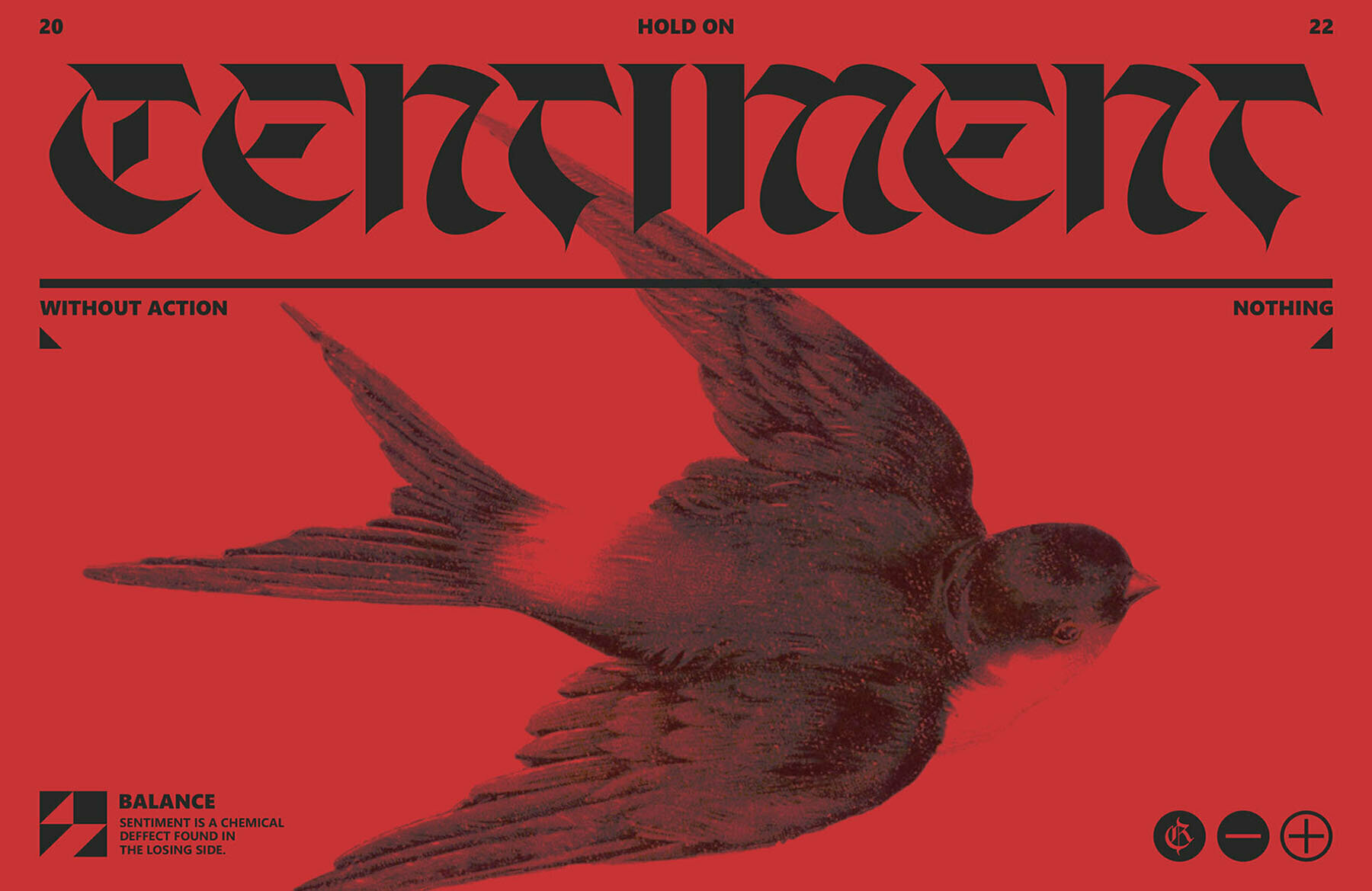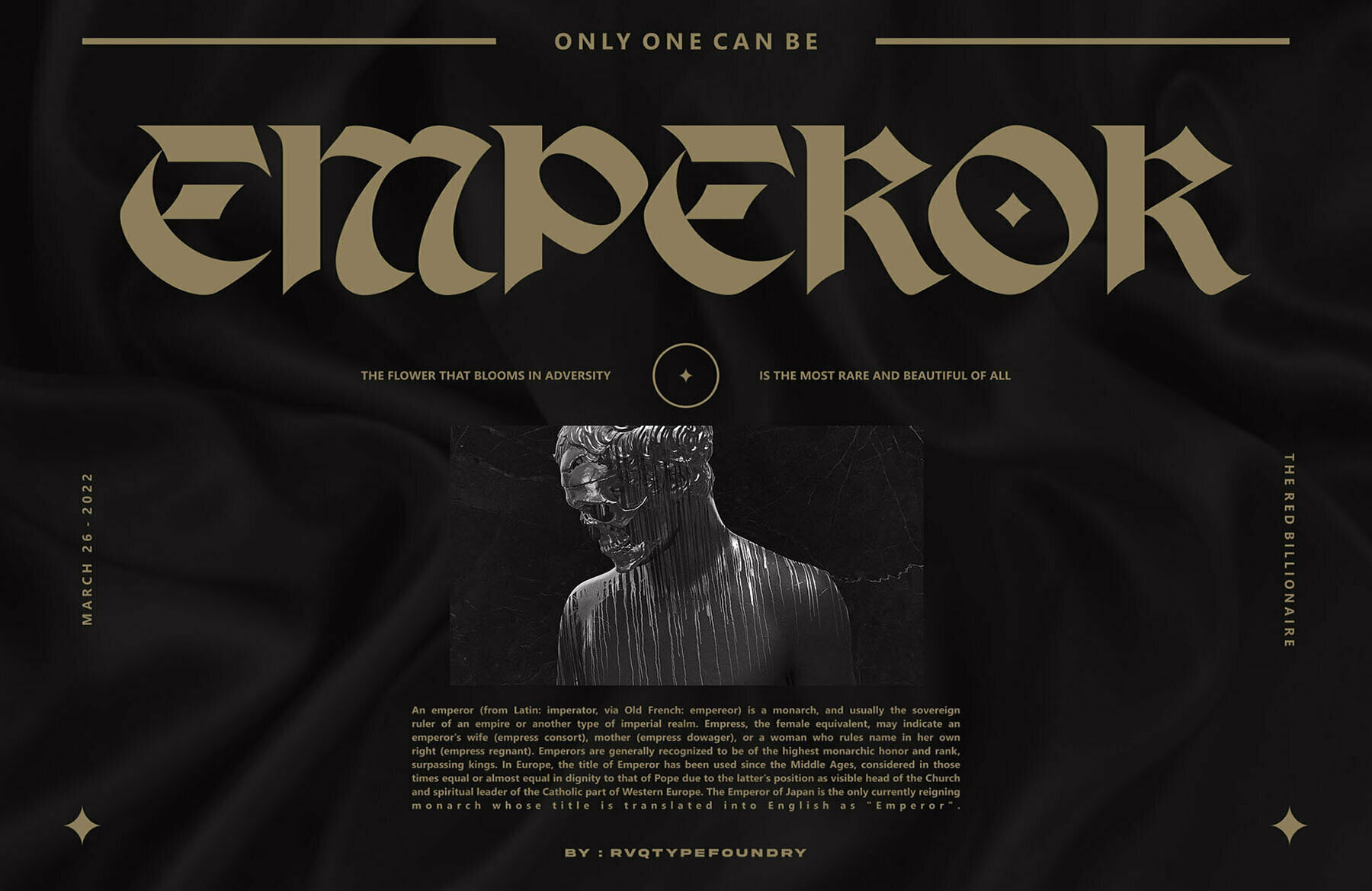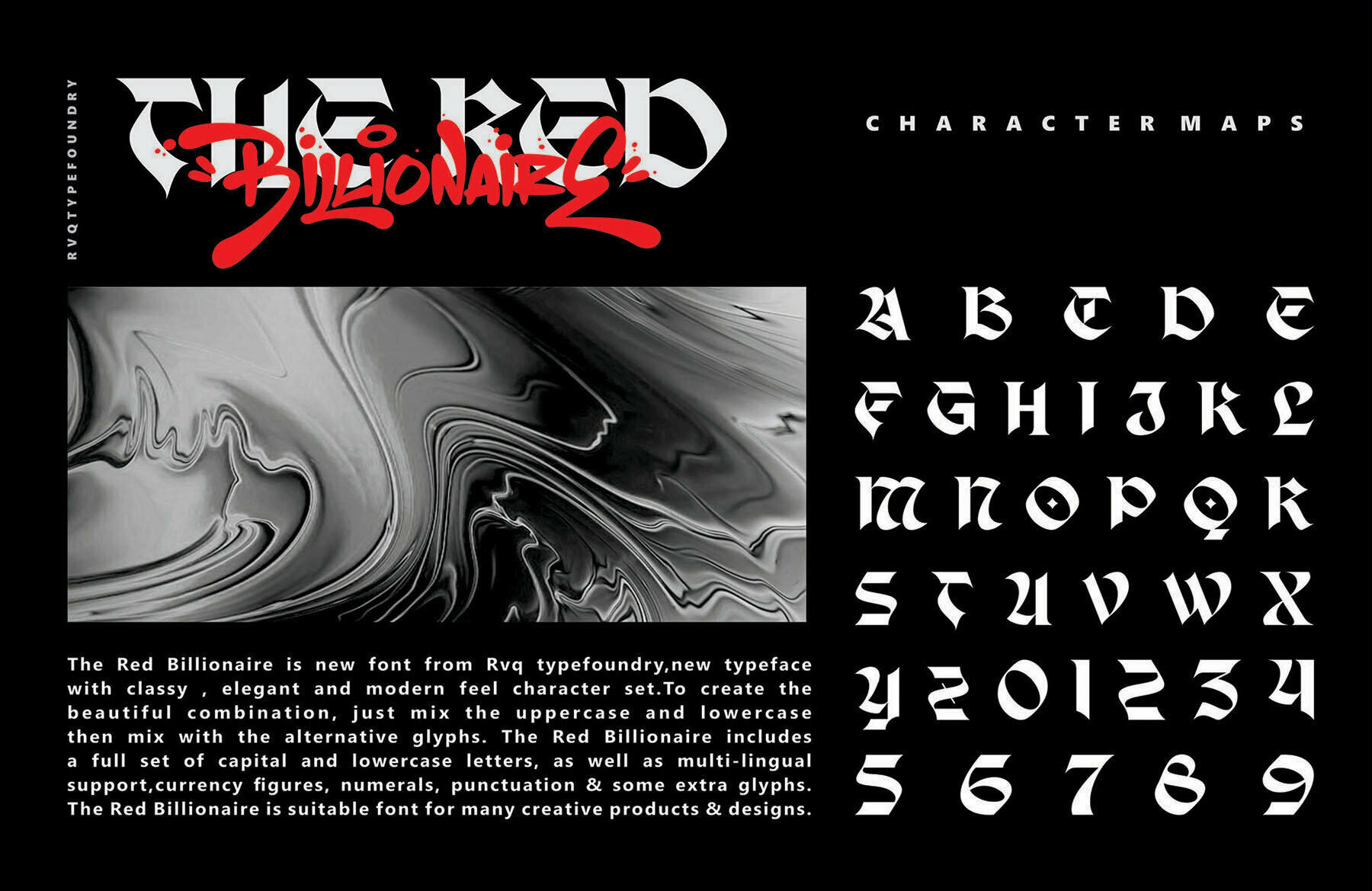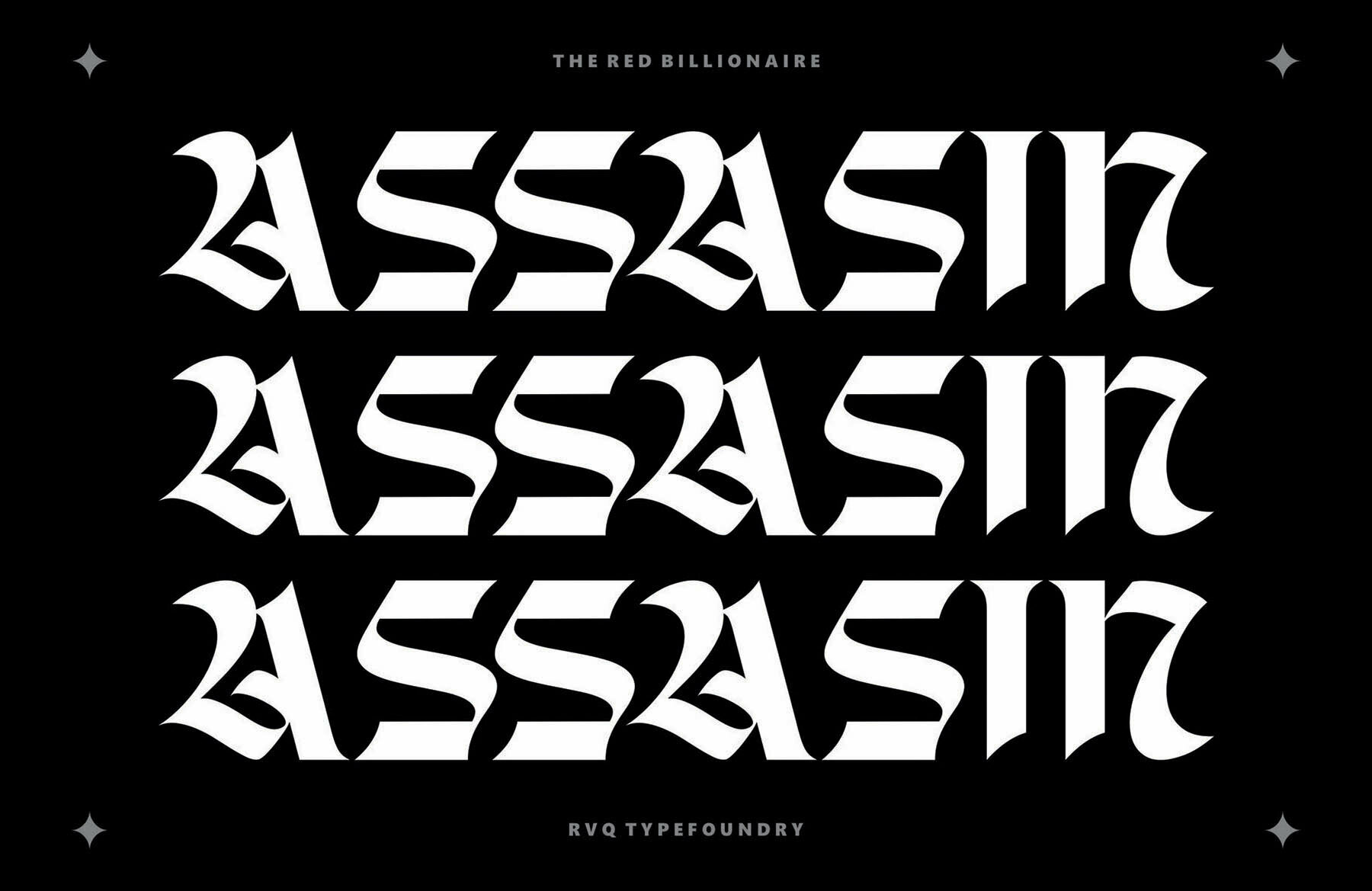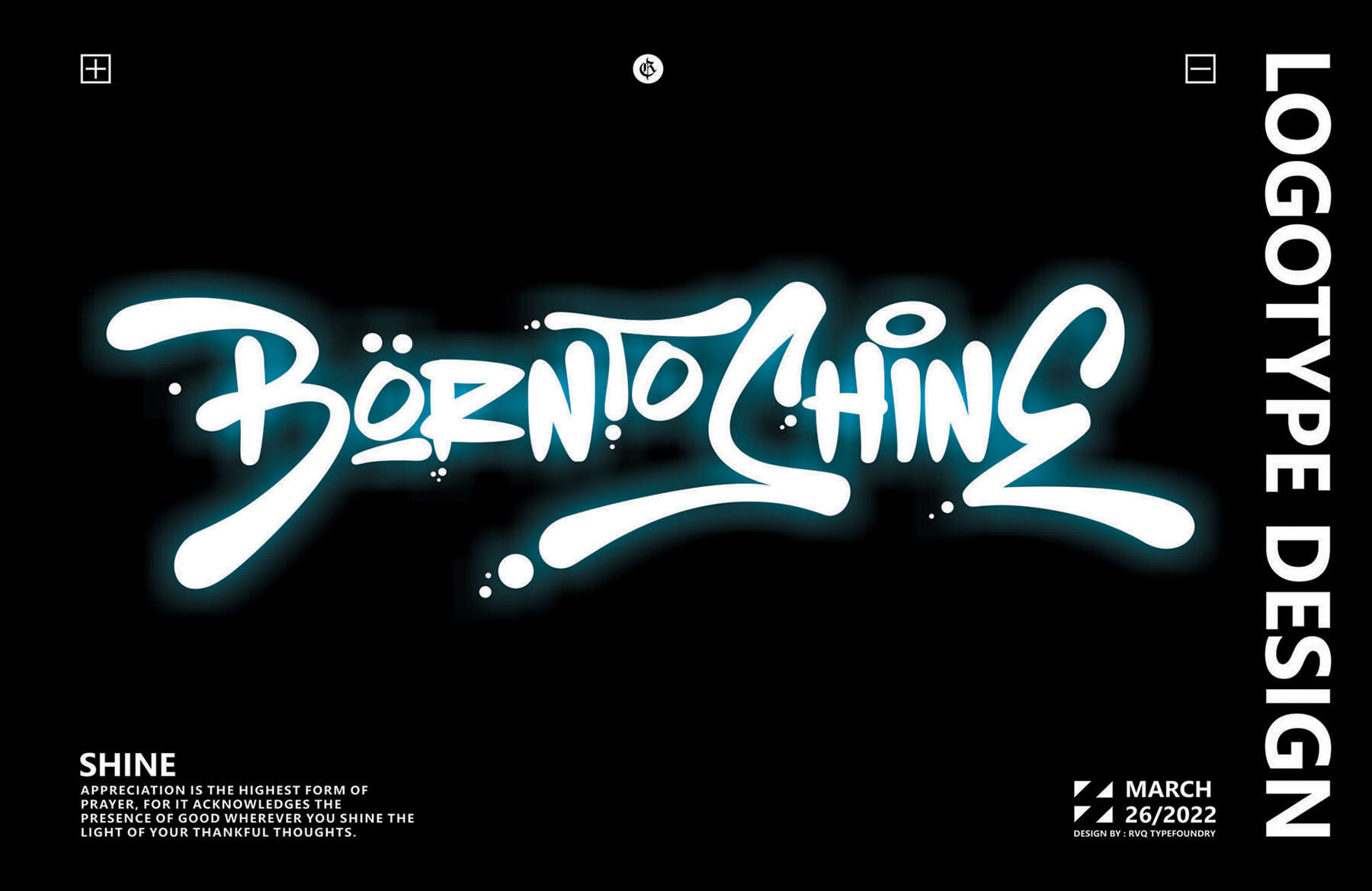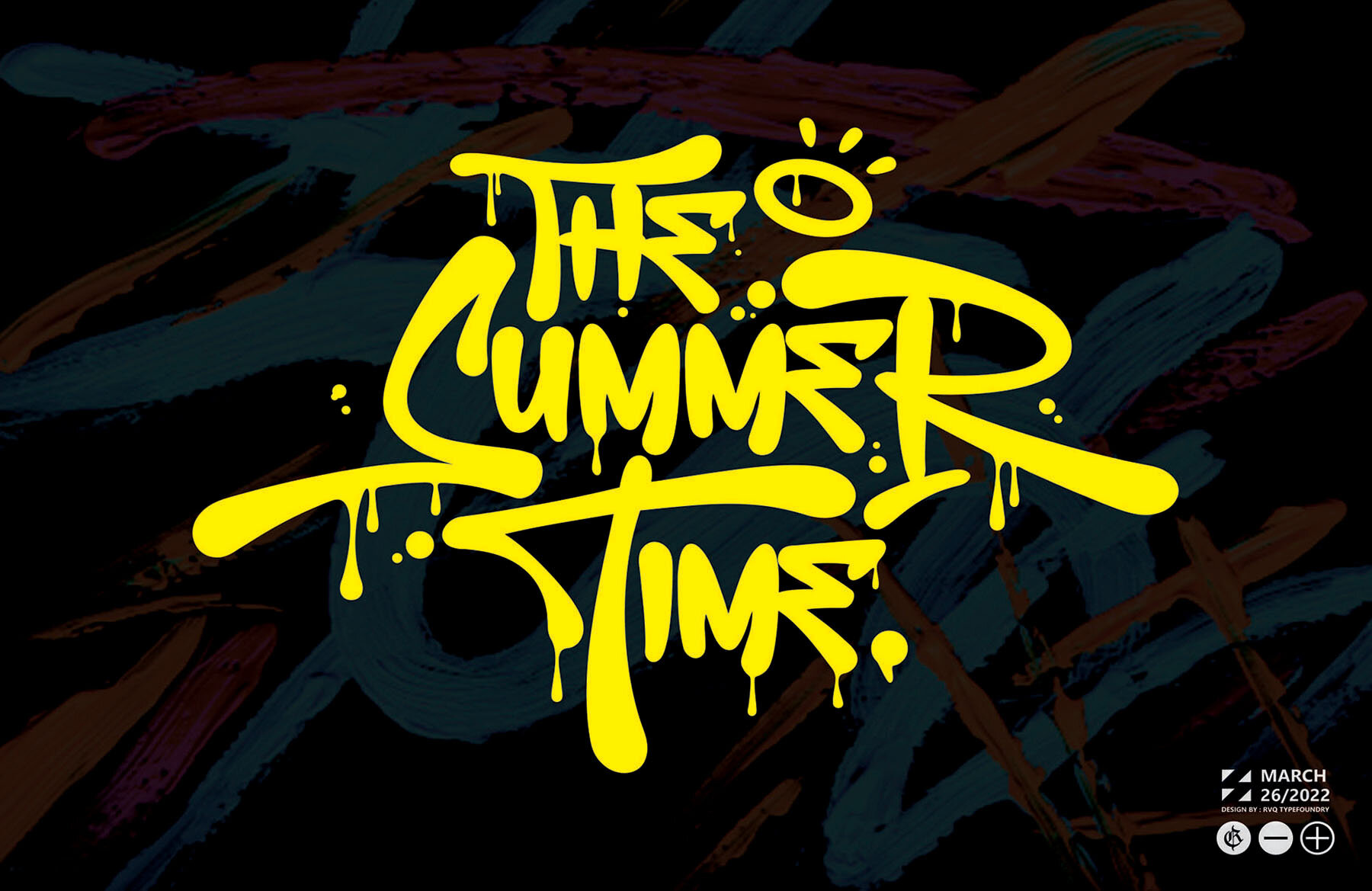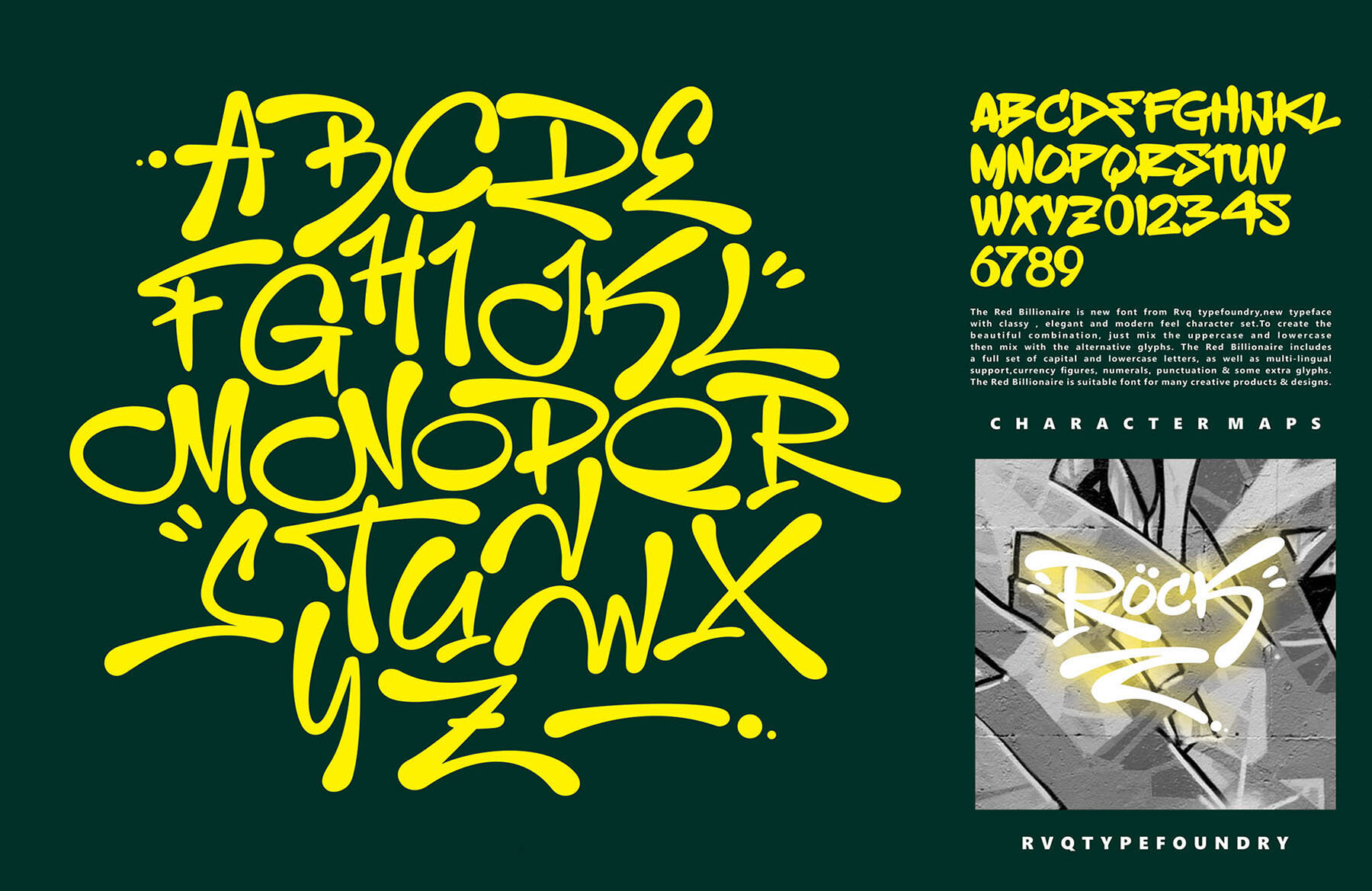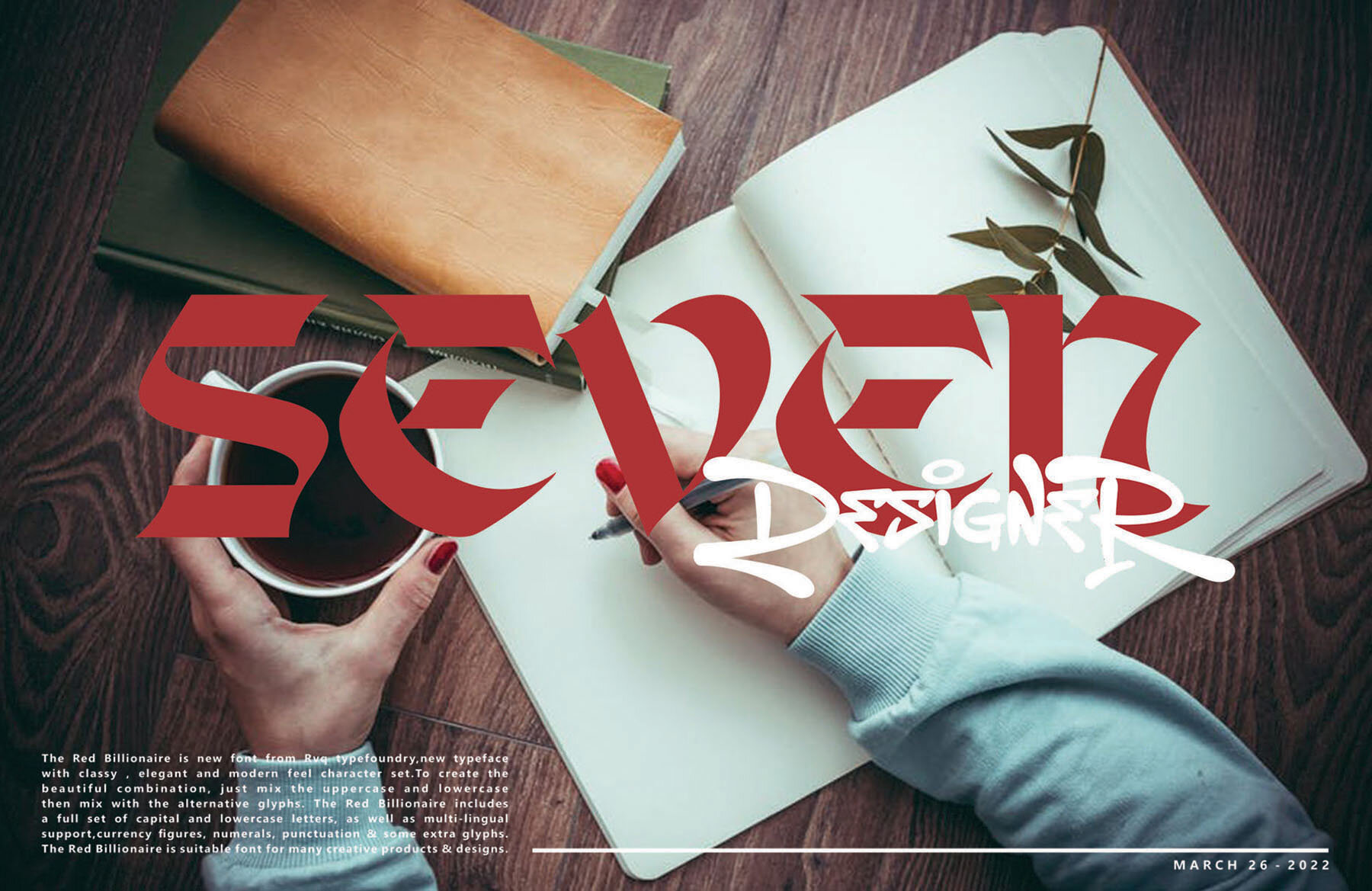
The Red Billionaire Font
Rvq Typefoundry's new font, The Red Billionaire is a dual-purpose typeface perfect for branding. It includes upper/lowercase support, along with multilingual support. This makes The Red Billionaire a wonderful design choice if you need an internationally compatible blackletter design.